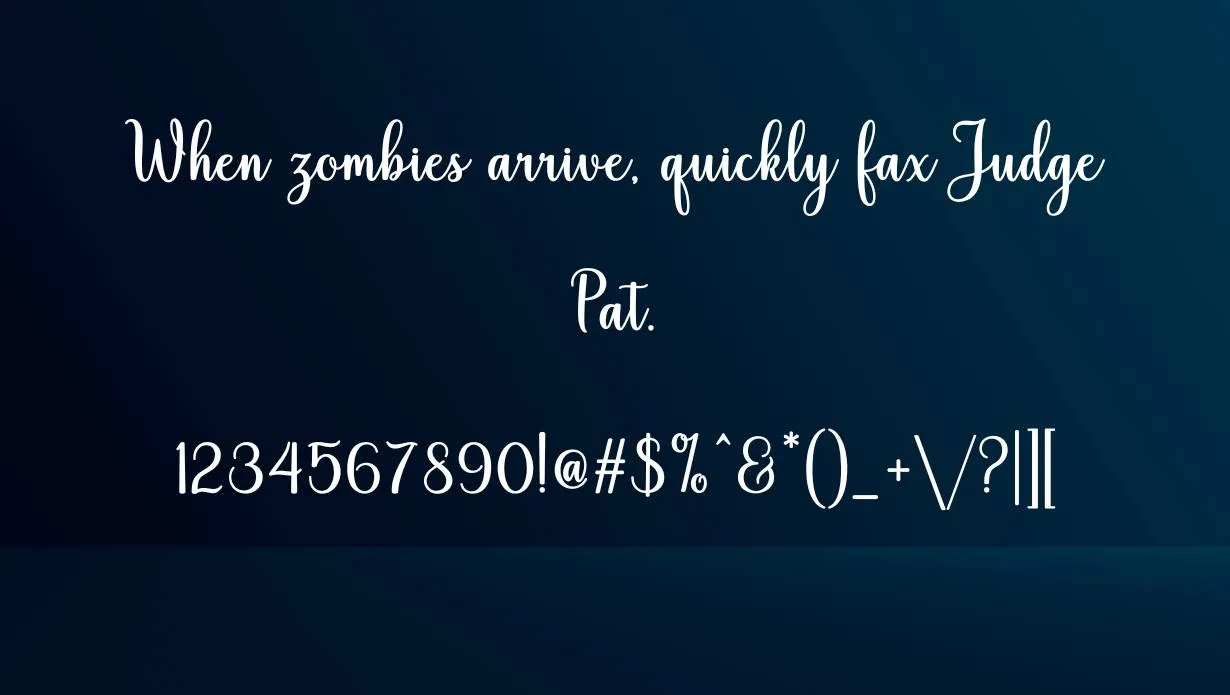
Hiyida font is bold and attention-grabbing. In MS Word, it’s excellent for creating eye-catching titles in reports or flyers. Its impact and boldness can make the text stand out. In Adobe Photoshop, Hiyida is suitable for designing posters or banners where the text needs to command attention.
Its strong and striking appearance is perfect for headlines or any text that needs to make a powerful statement.
| Name | Hiyida Font |
| Designer | Creative.Lafont |